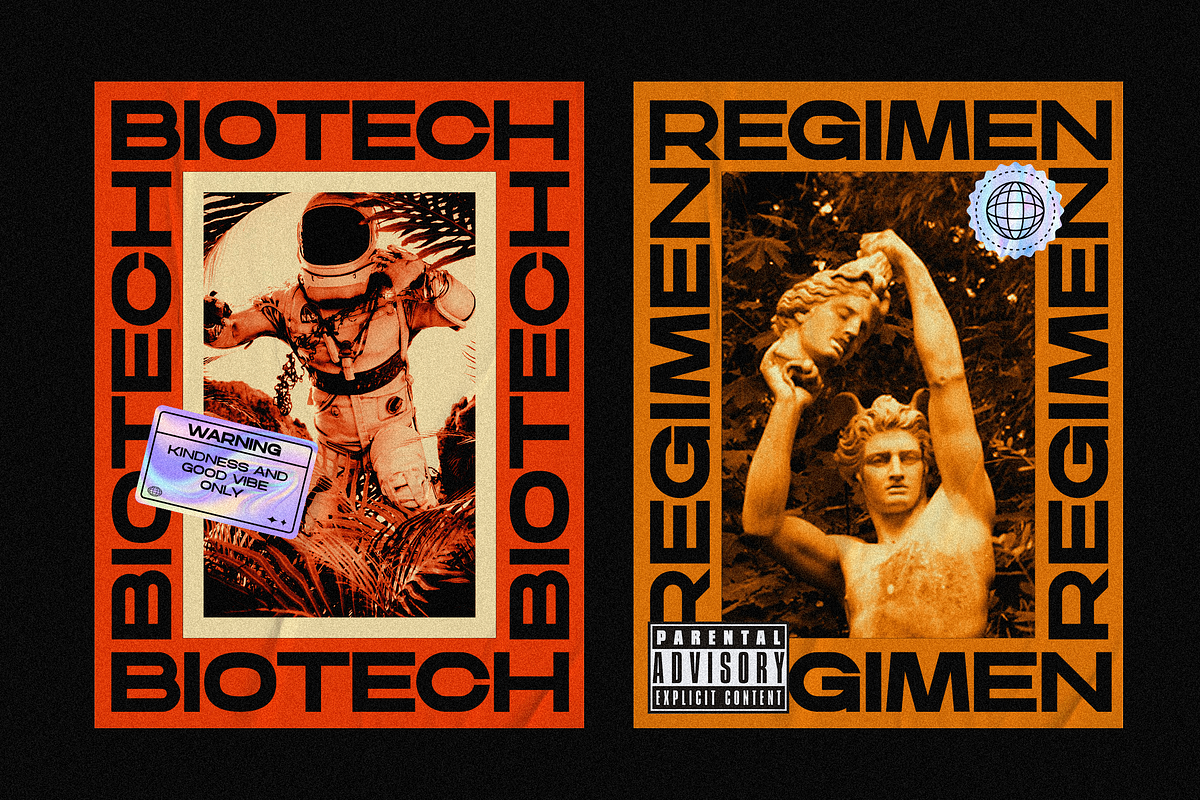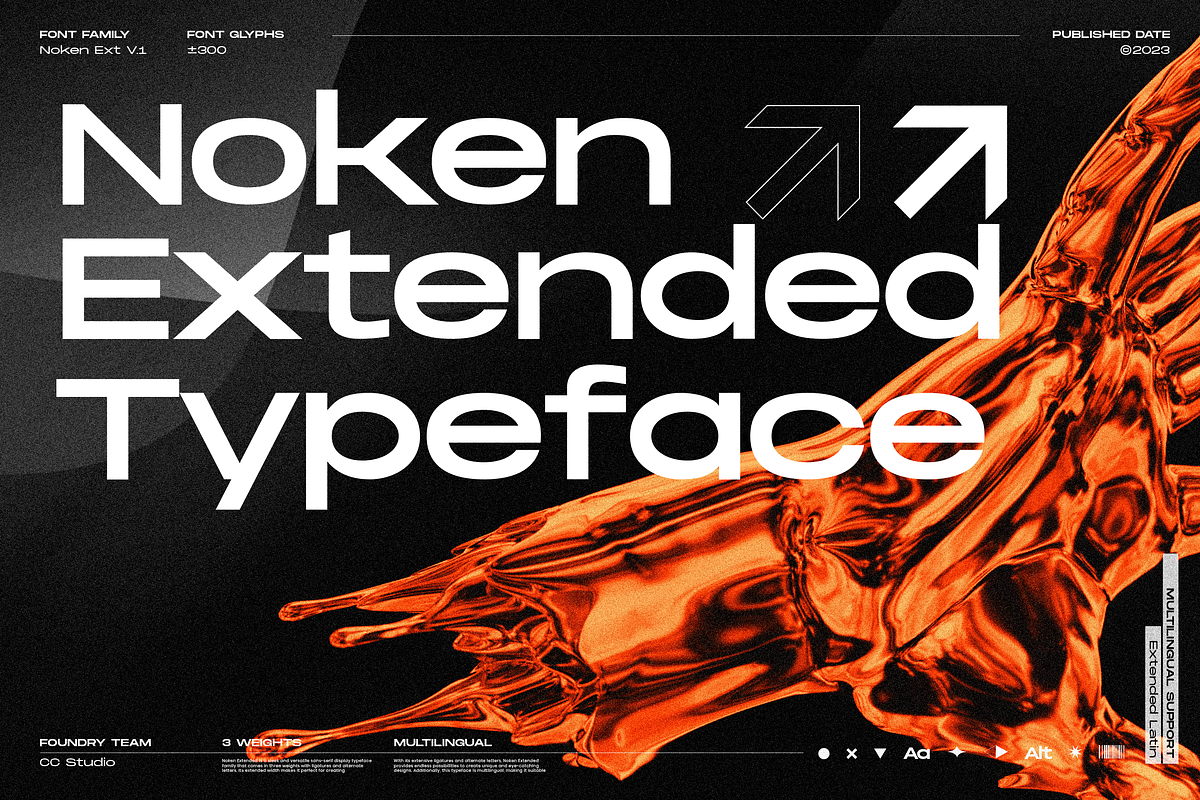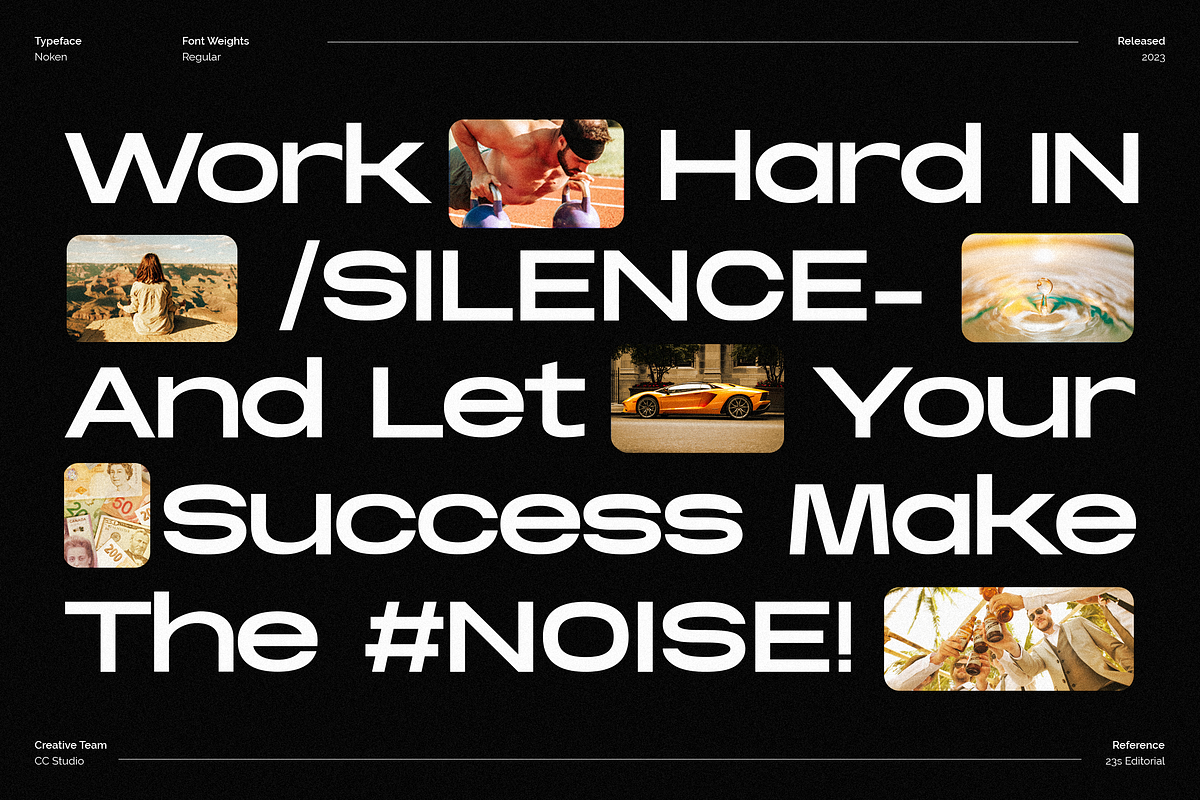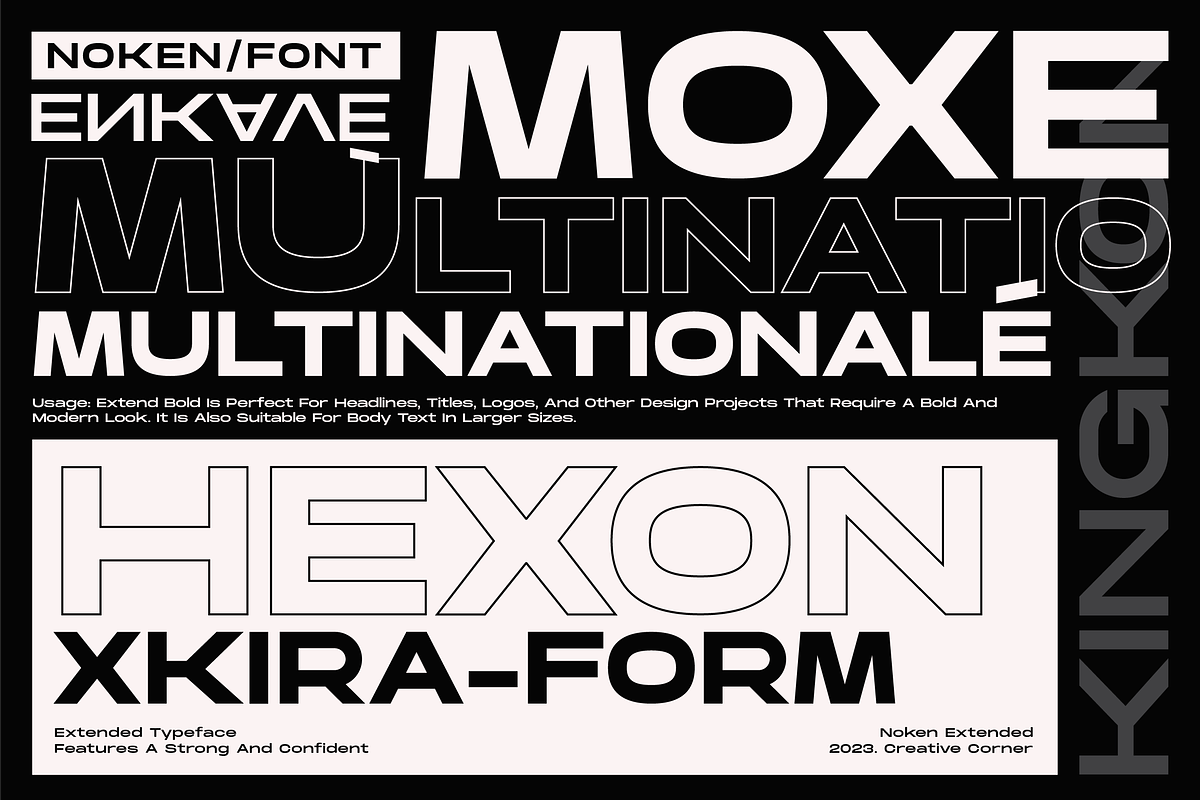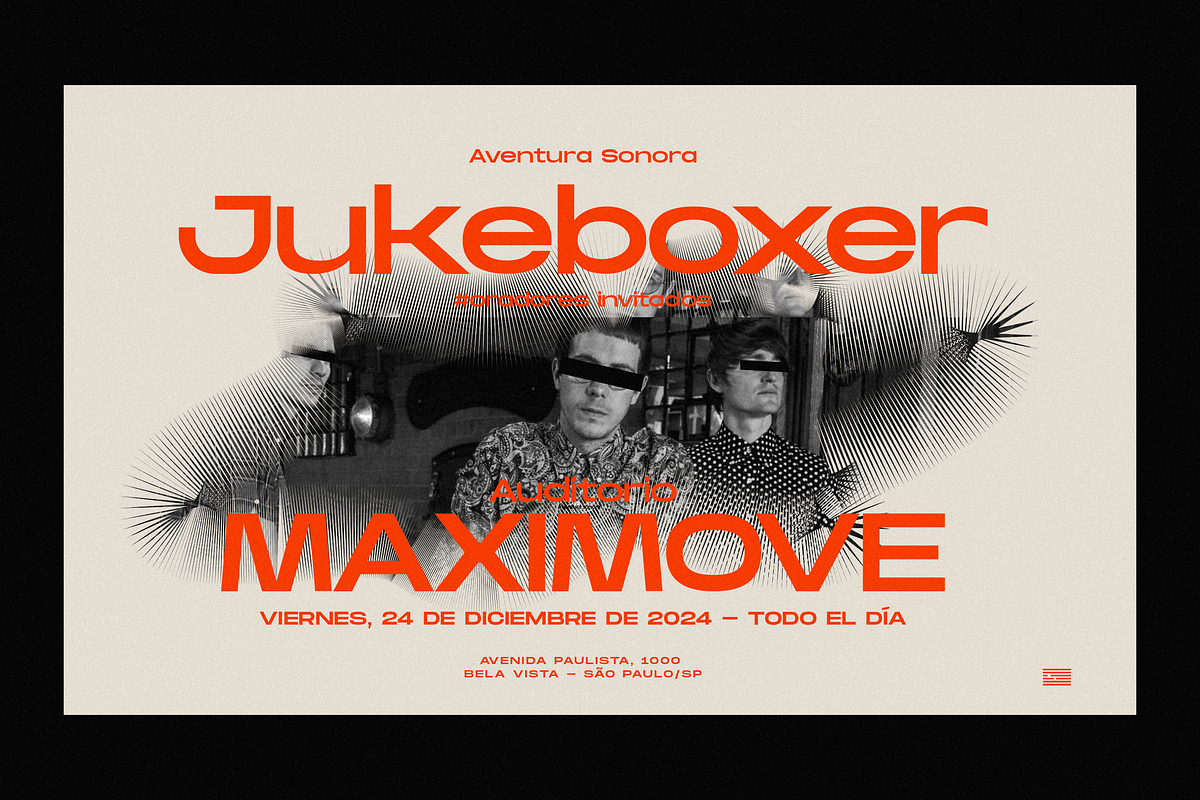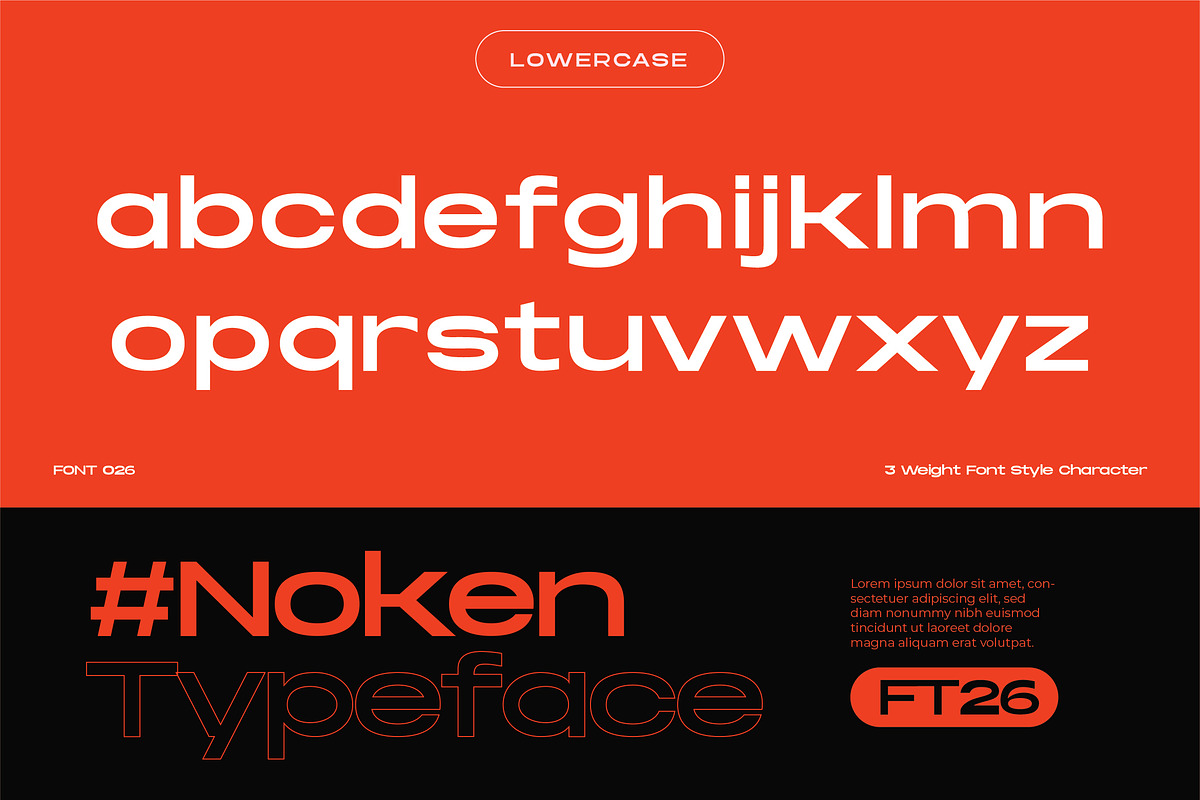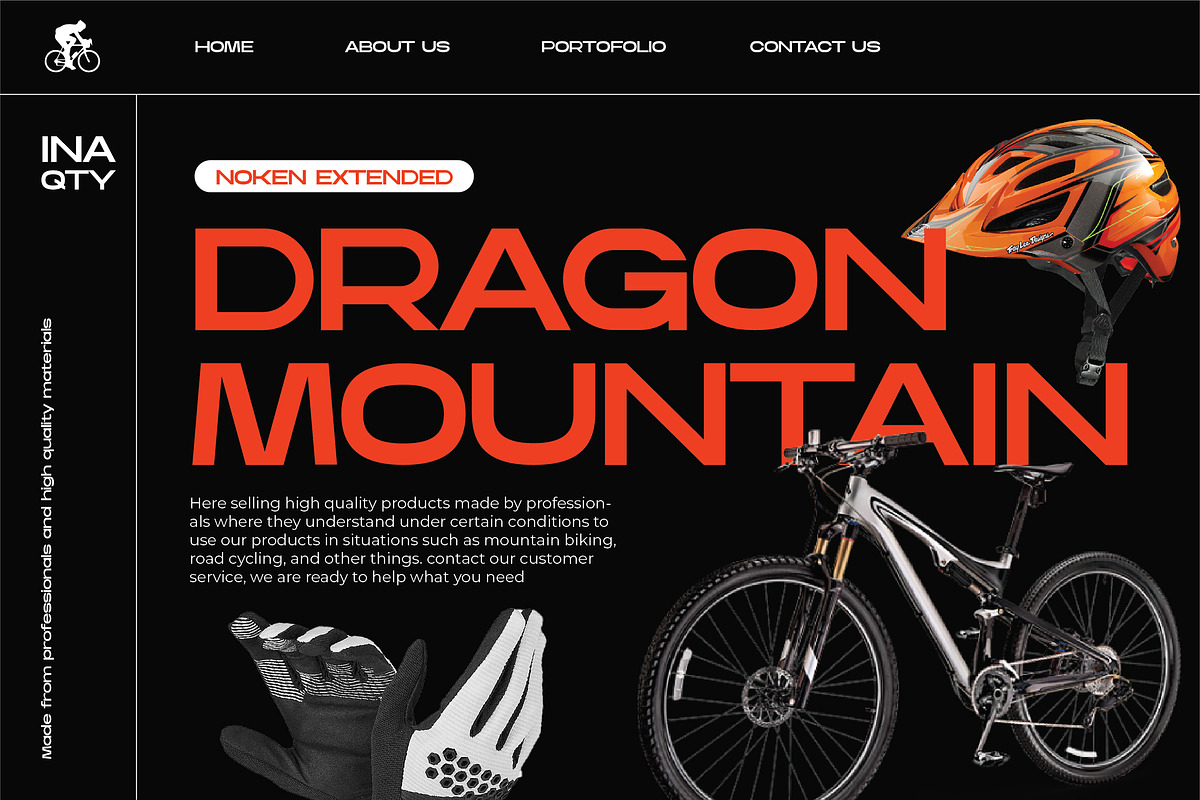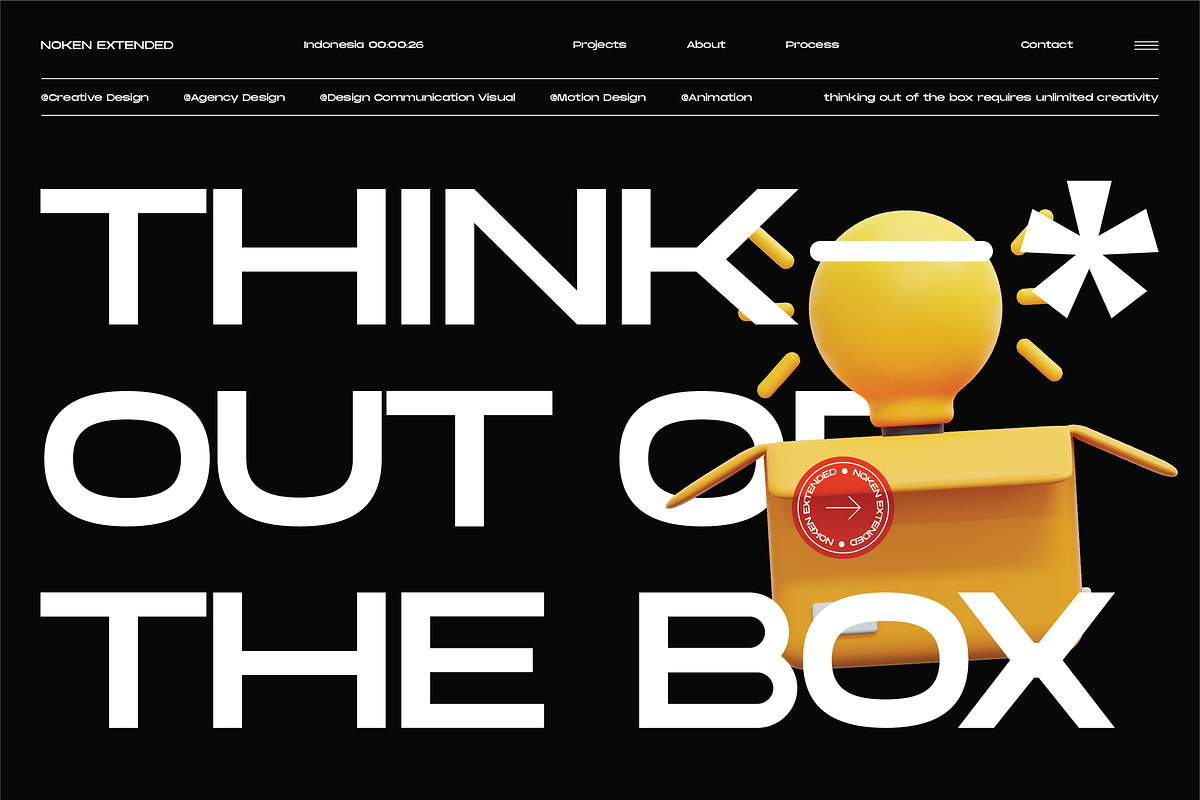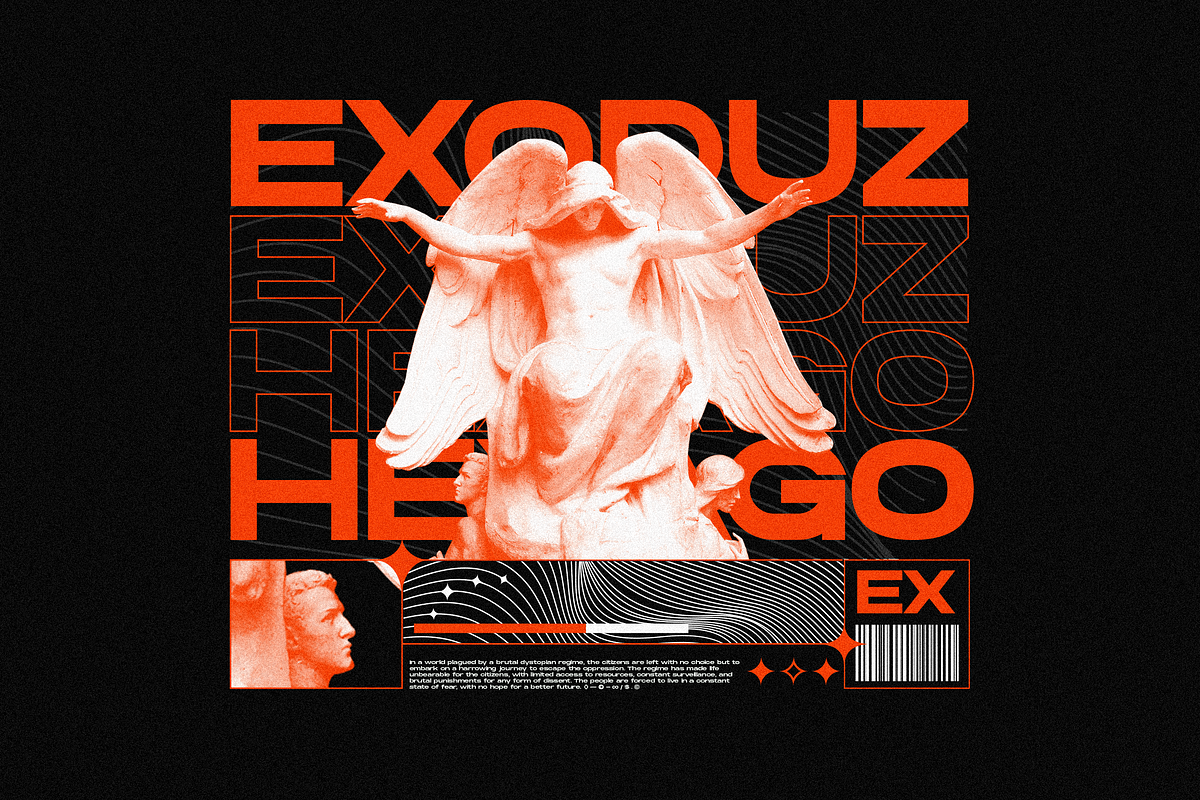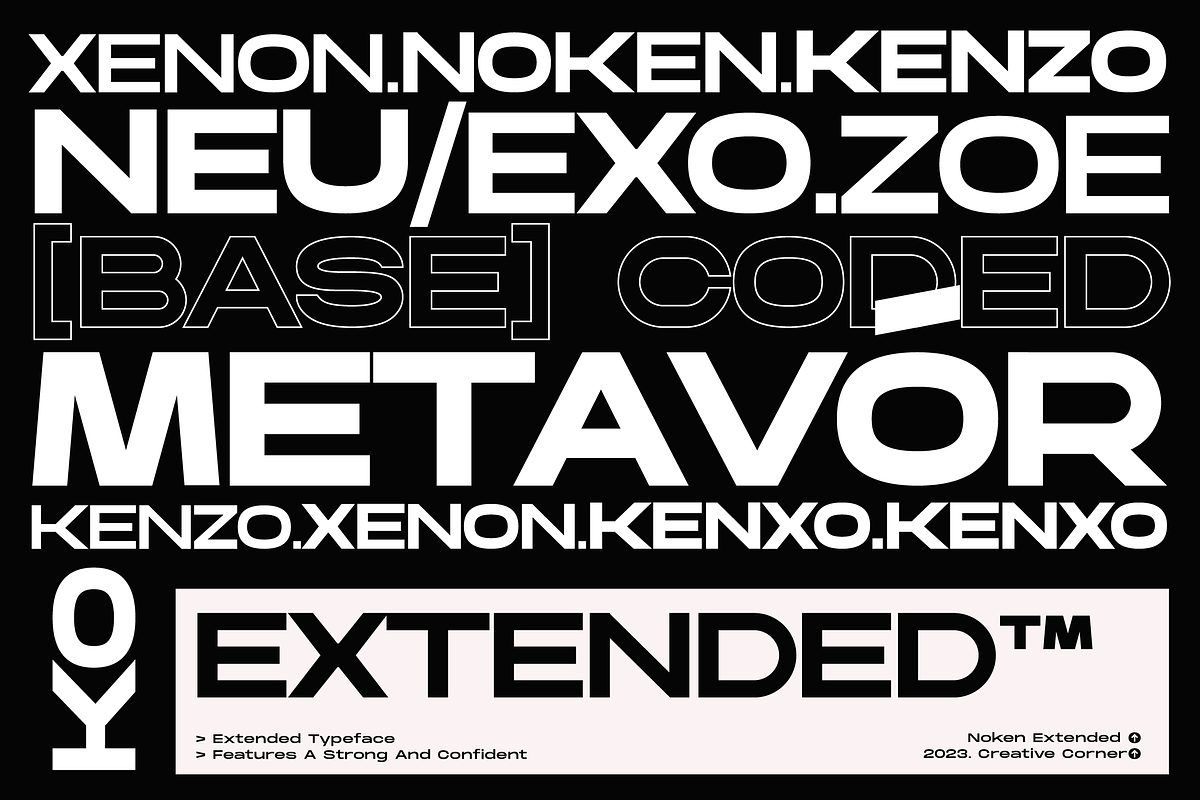
Noken Extended - Versatile Typeface
Noken Extended is a sleek and versatile sans-serif display typeface family that comes in three weights with ligatures and alternate letters. Its extended width makes it perfect for creating attention-grabbing typography, whether you're designing for print or digital media. Noken Extended is an excellent choice for designers looking to add sophistication and style to their designs with bold and unique typography.
3 Weights font
Stylistic Alternates & Ligatures